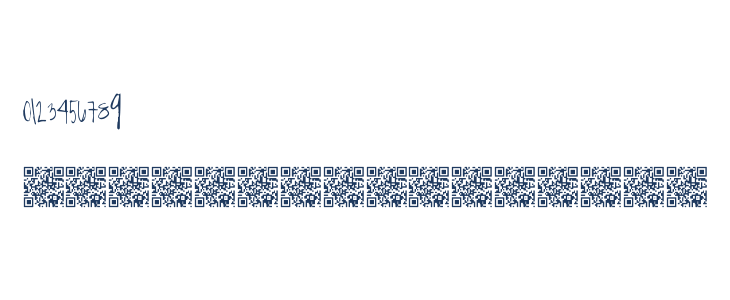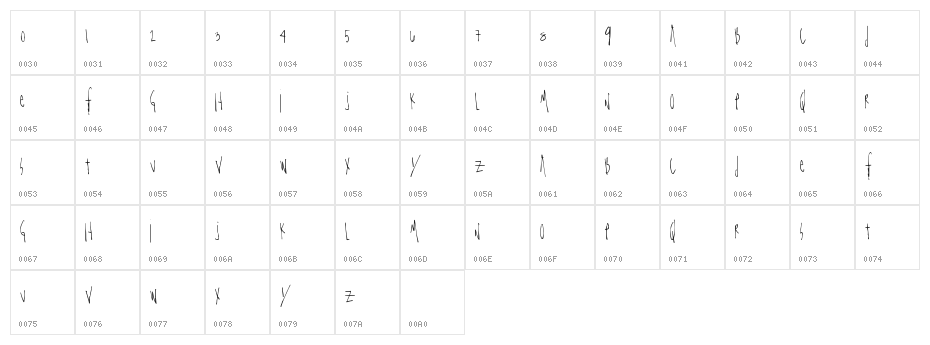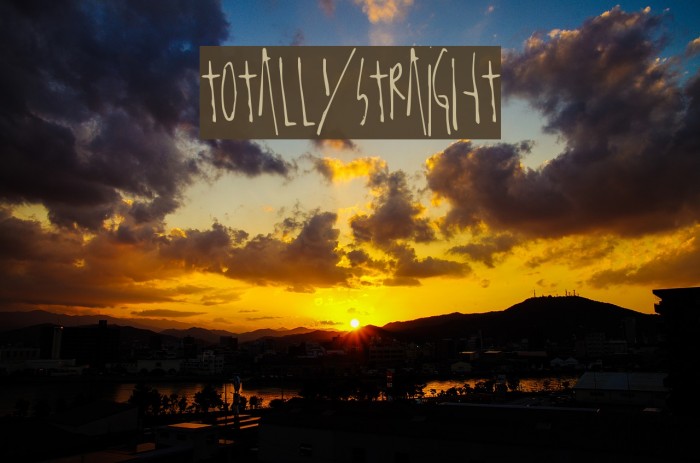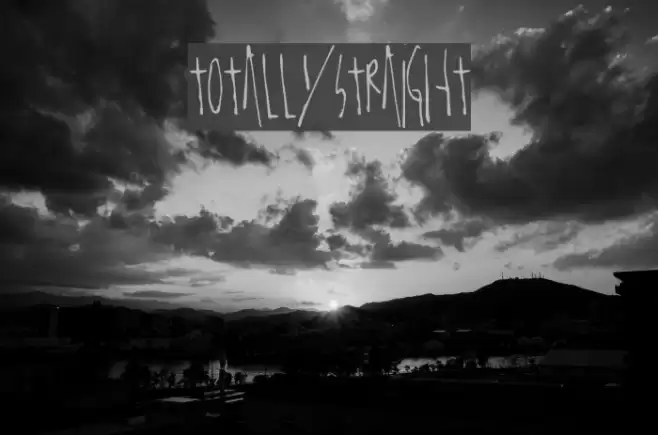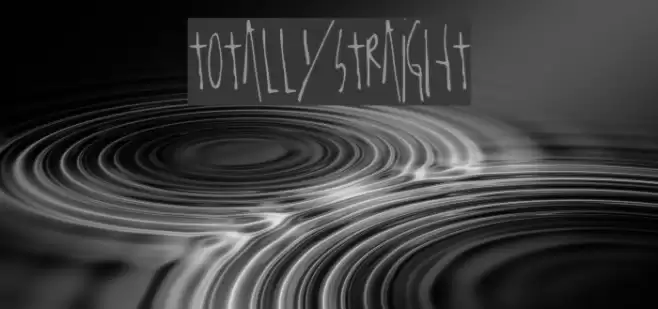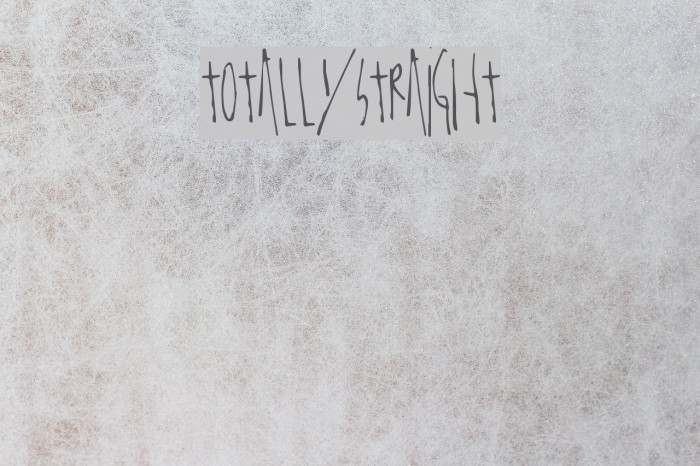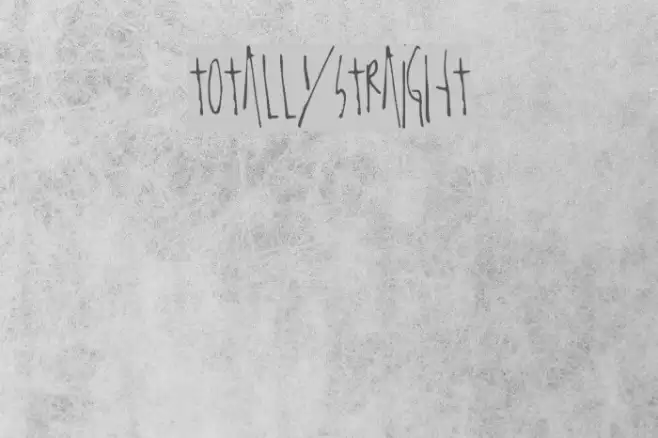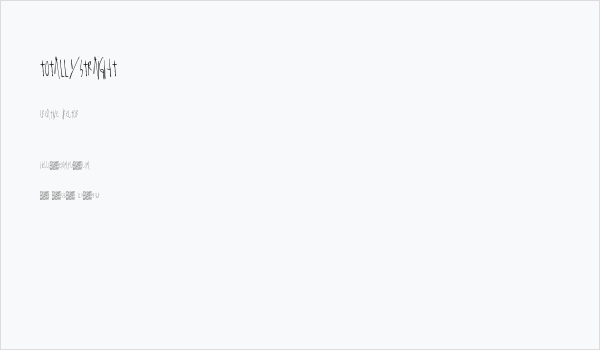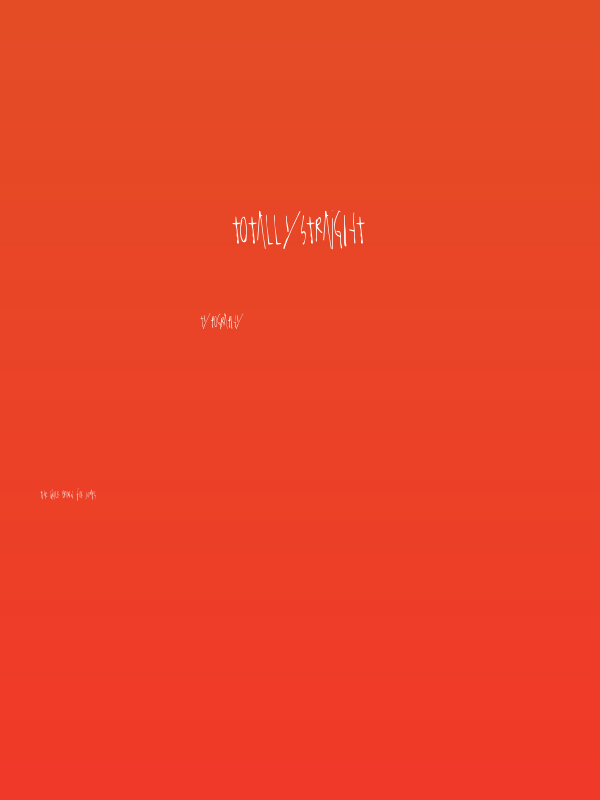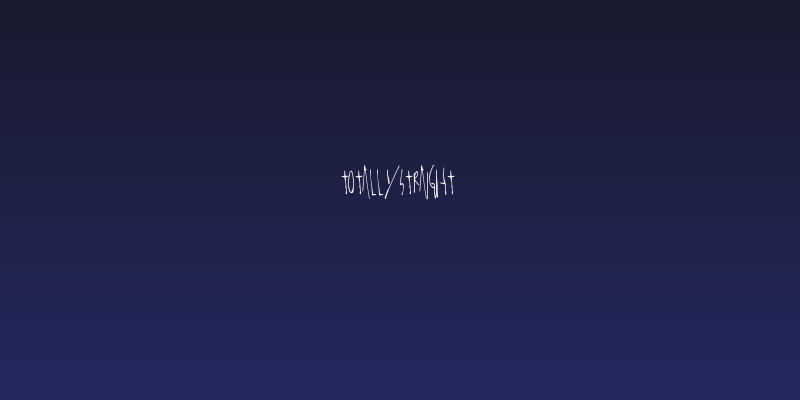
TotallyStraight Font
TotallyStraight Description
This font exhibits a playful and casual handwritten style, characterized by its uneven strokes and slightly tilted letters. The uppercase letters are tall and narrow, while the lowercase letters maintain a consistent height, creating a cohesive yet informal appearance. The numbers follow the same whimsical style, adding to the overall charm. The special characters are integrated seamlessly, maintaining the font's unique personality. This font is perfect for projects that require a personal touch or a relaxed, approachable vibe.
| Proposed Projects | Ideal for greeting cards, personal blogs, informal invitations, and creative branding projects. |